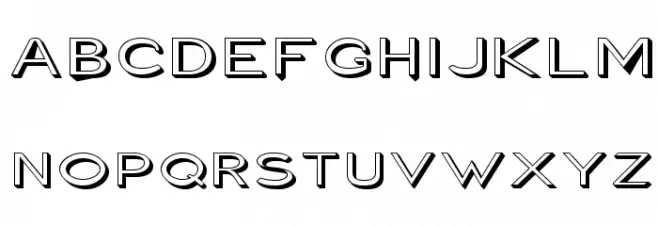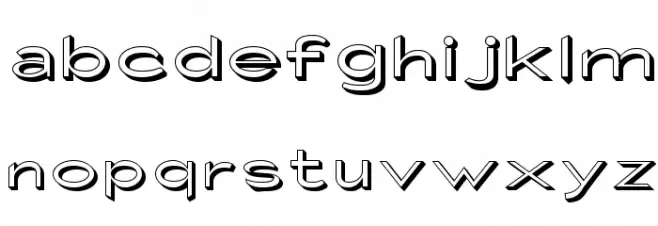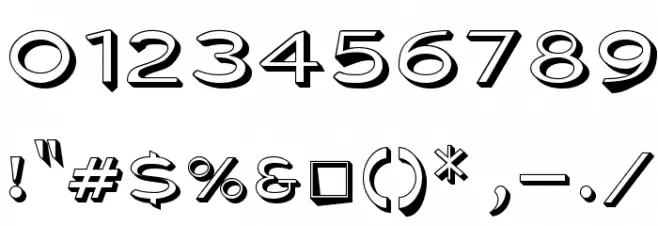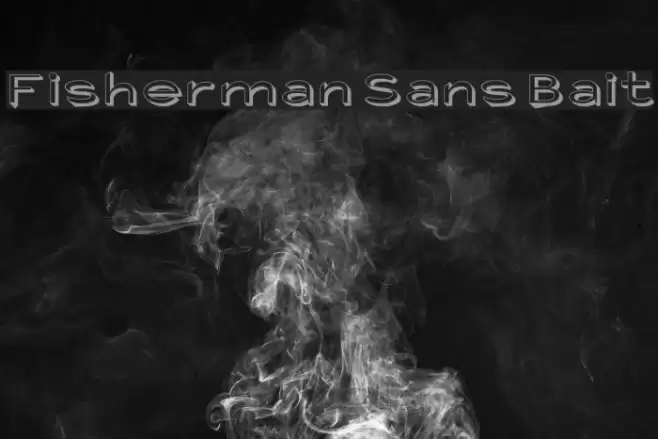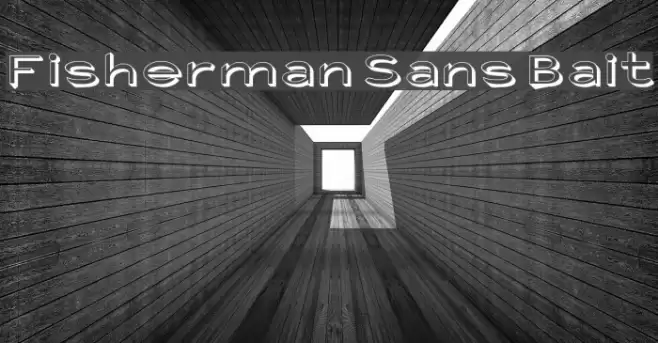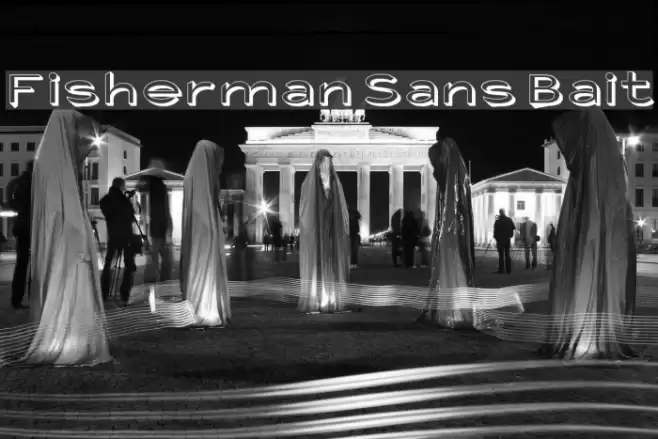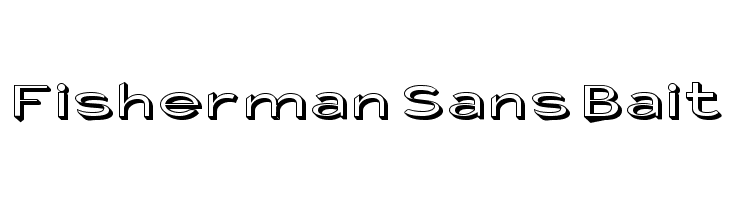
Fisherman Sans Bait
This font features a bold, sans-serif style with a distinct three-dimensional shadow effect, giving it a unique and eye-catching appearance. The characters are clean and geometric, with consistent stroke widths that contribute to a modern and structured look. The uppercase and lowercase letters maintain a uniform design, ensuring readability and visual harmony. The numerals and special characters are crafted with the same attention to detail, making them suitable for various design applications. The font's playful yet professional aesthetic makes it versatile for both digital and print media.
A bold, sans-serif font with a 3D shadow effect and geometric design.
- Proposed Projects: Ideal for branding, posters, headlines, and digital graphics where a modern and dynamic look is desired.
- Use Case: Headlines, Logos, Posters